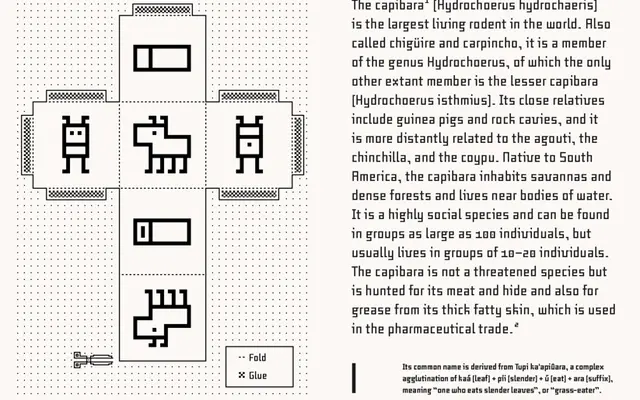
Capibara
Bold Monday · Pieter van Rosmalen · 2002
A geometric modular typeface built entirely from horizontal and vertical strokes, referencing Constructivist typographic experiments of the early 20th century.
Designed by Pieter van Rosmalen between 2002 and 2008, Capibara draws on the experiments of artists like Theo van Doesburg and H.Th. Wijdeveld, constructing every letterform from orthogonal strokes alone. Slightly rounded corners soften the inherent rigidity, and the letterforms deliberately avoid strict grid adherence to prevent the coldness common in modular designs. Ten styles span proportional and monospaced variants across five weights, with small caps, multiple numeral sets and broad Latin coverage included.
Capibara is built exclusively from horizontal and vertical strokes with no curves, placing it firmly in the geometric modular tradition. Its Constructivist references and strictly rectilinear construction make it a display typeface despite the availability of a monospaced variant.